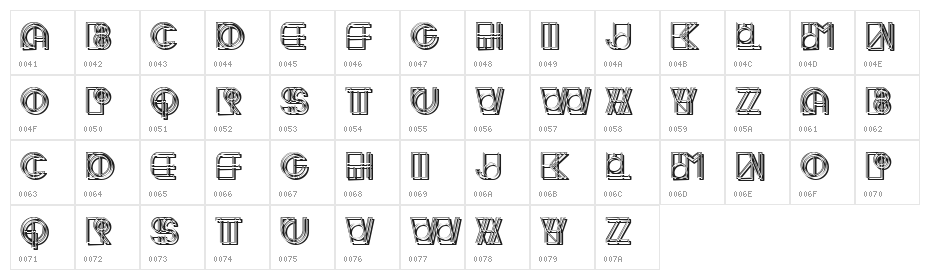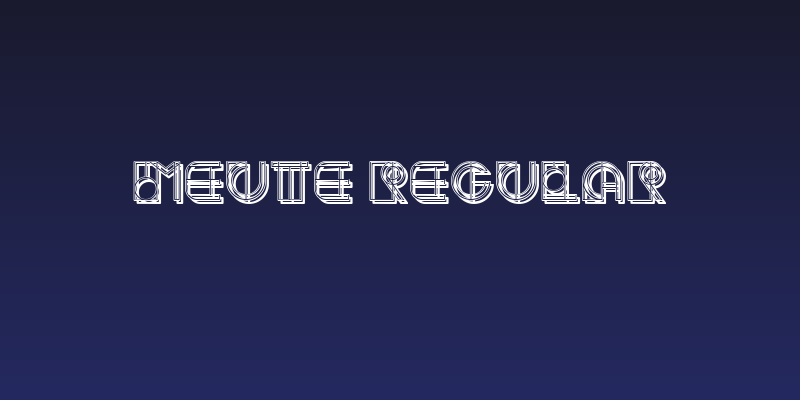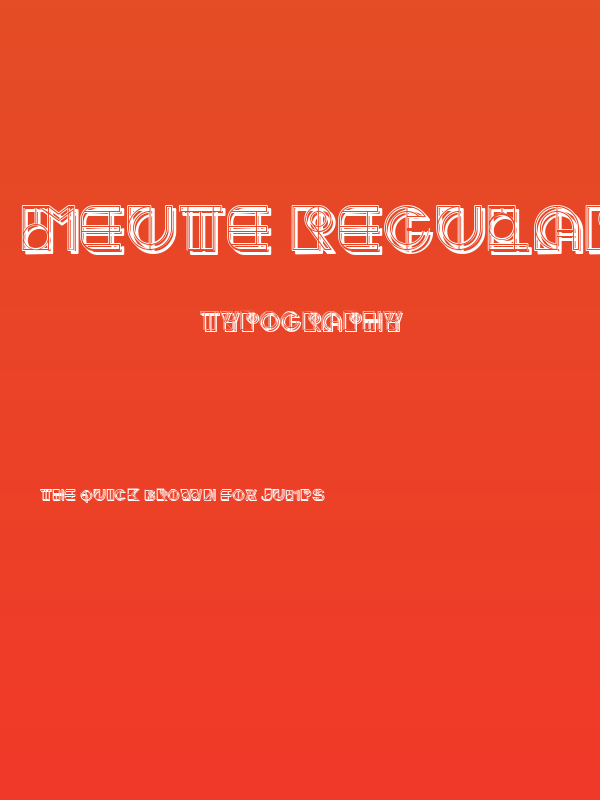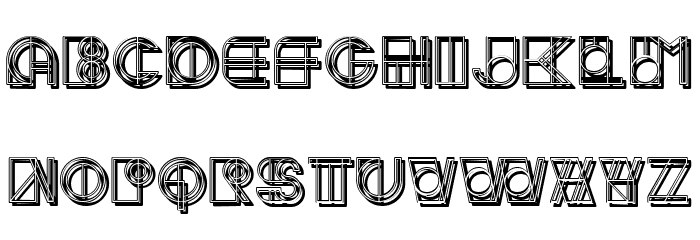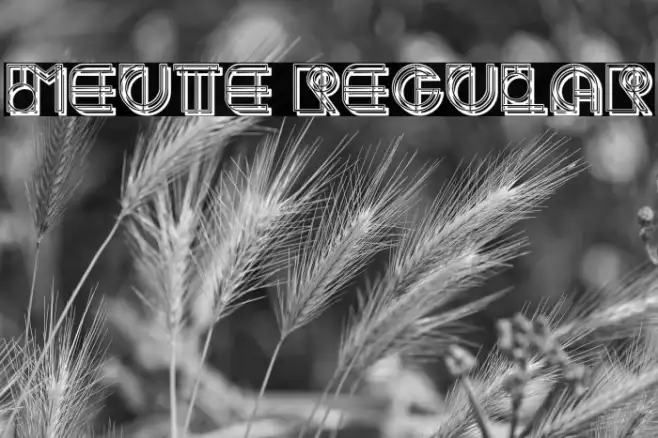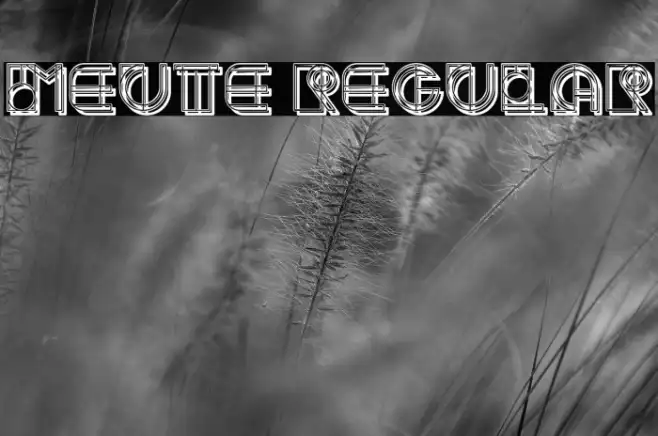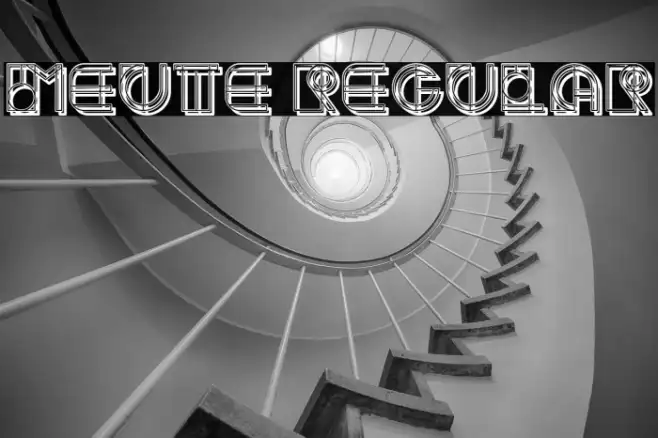
Meute Regular Font
Meute Regular Description
This font features a bold and intricate design with a geometric and layered appearance. Each character is composed of multiple overlapping lines, creating a sense of depth and complexity. The style is highly decorative, with a modern twist that makes it stand out. The uppercase letters are particularly striking, with their bold outlines and detailed inner patterns. This font is ideal for projects that require a strong visual impact and a contemporary aesthetic.
| Proposed Projects | Ideal for posters, album covers, branding, and any design that requires a striking and modern decorative font. |